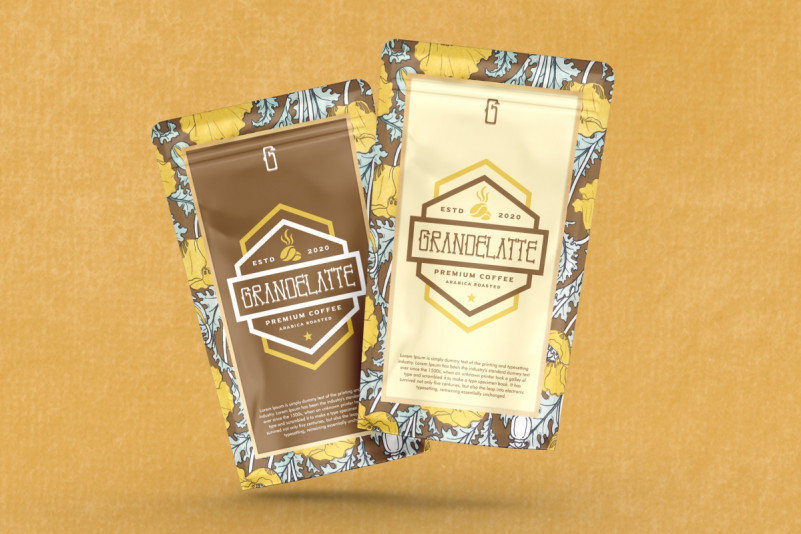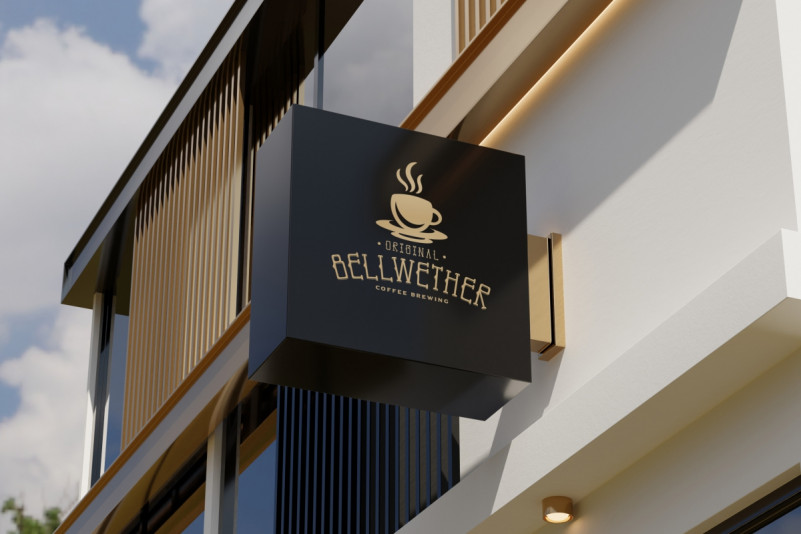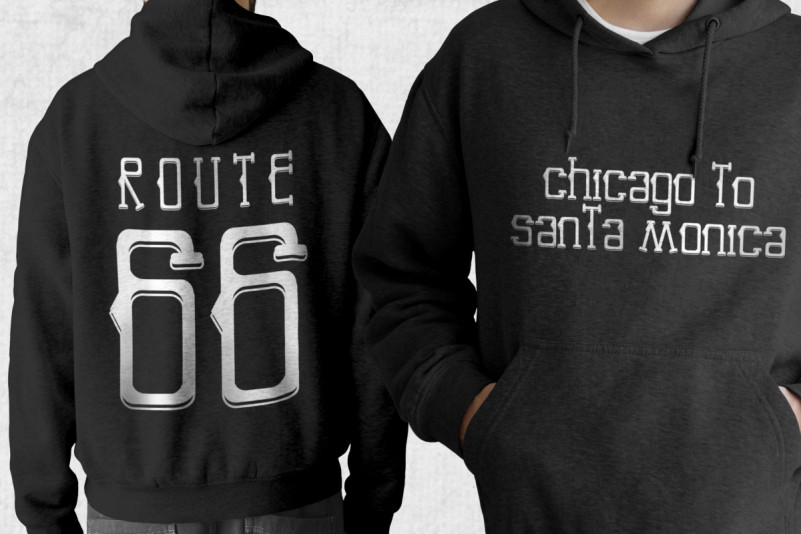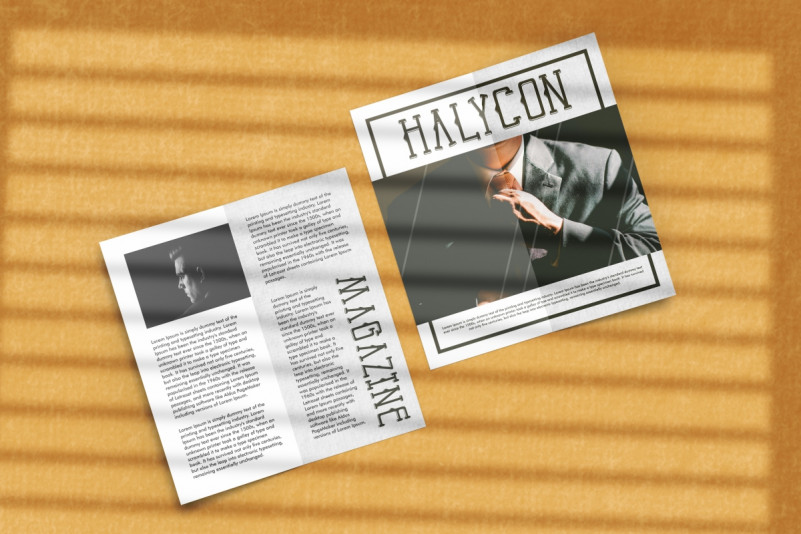
End Seconds Font
End Seconds Display Font
It’s a unique serif display font with vintage vibes. The font was inspired from vintage classic lettering. It has a unique style that will bring the special effect to the design. It will works for events, wedding, branding, artist, make up, and any other fun things. End Seconds includes full set of Uppercase and Lowercase Basic Characters, Numerals and Punctuation. The font will also works for outdoor, fashion products, camping, adventure style. The font is perfect for many projects, headlines, logos, poster, tittle, products, etc